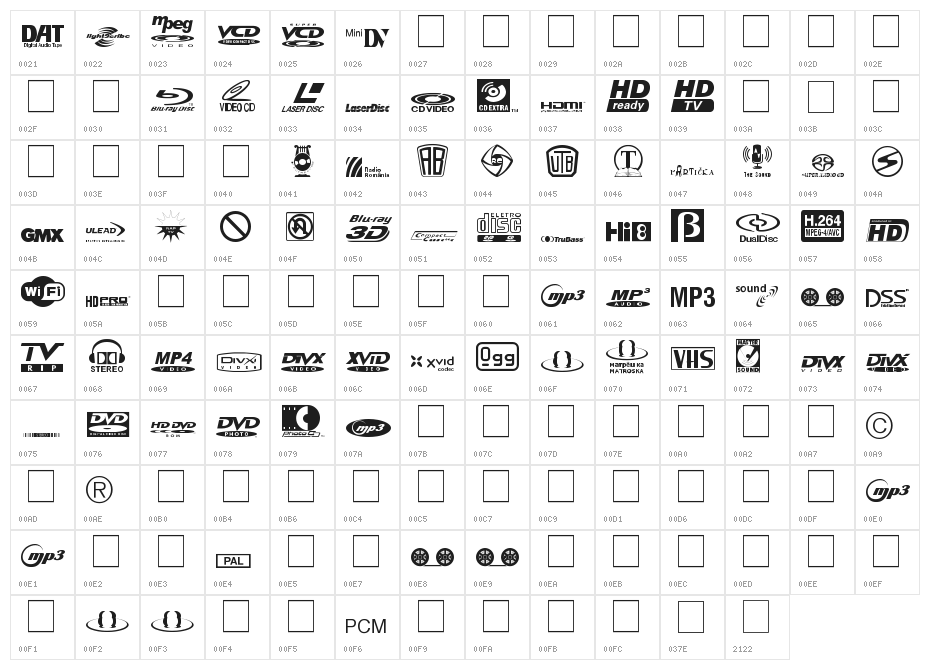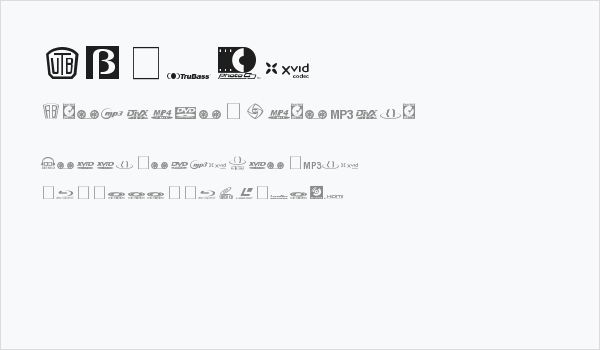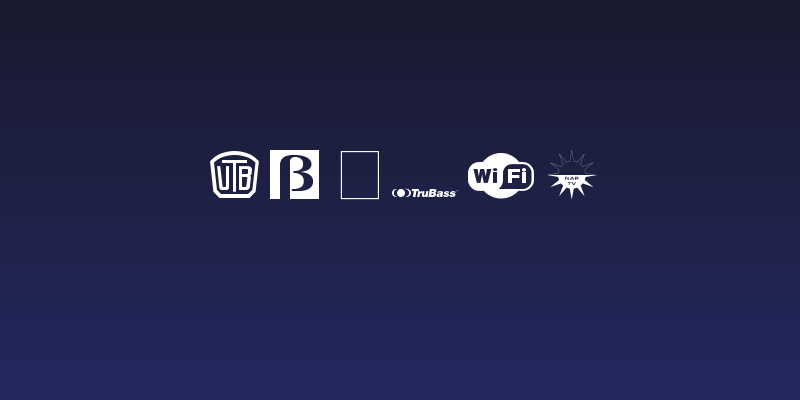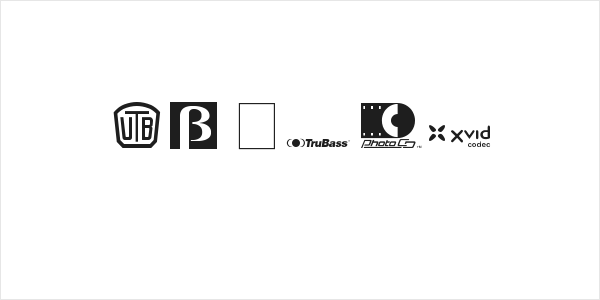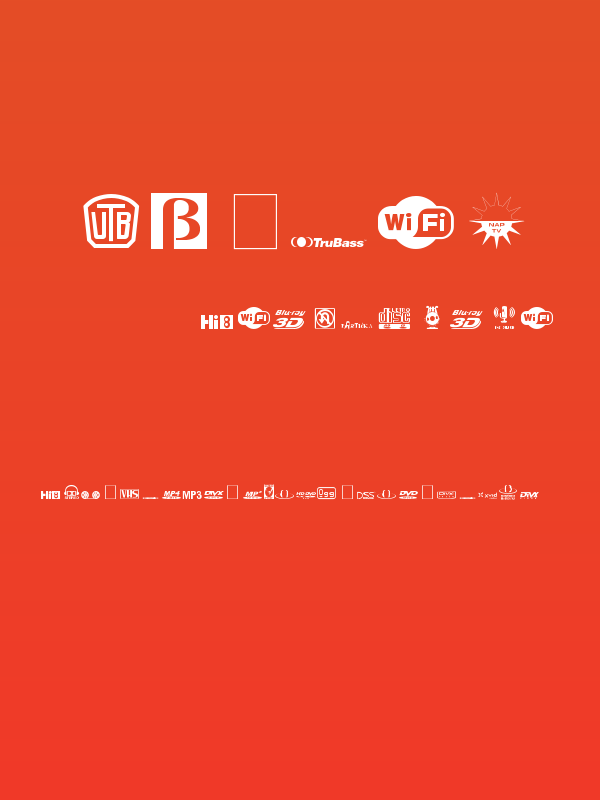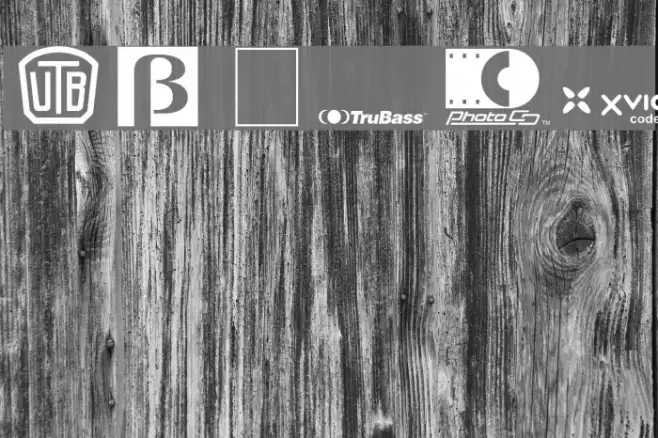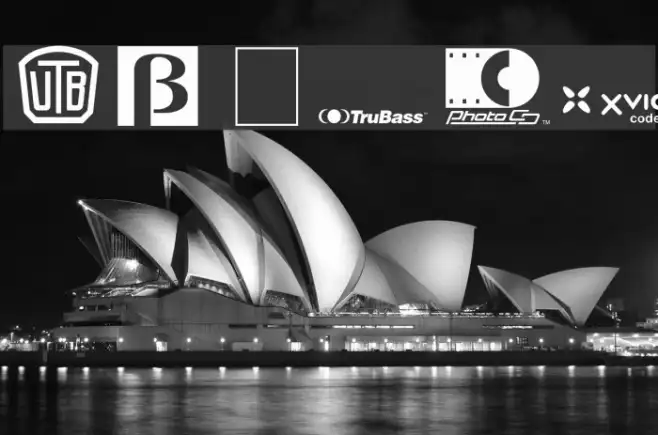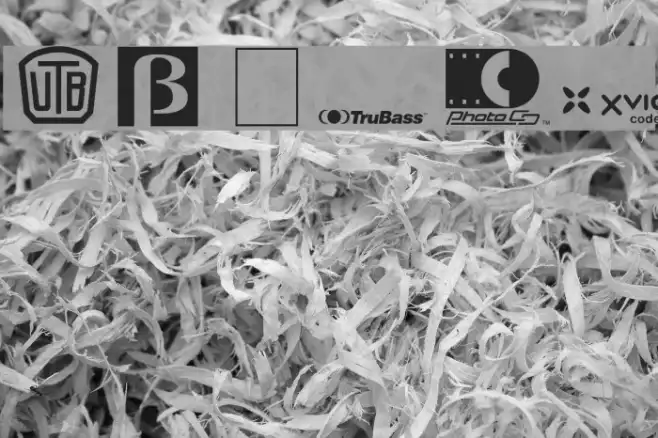
EU-Sym Font
EU-Sym Description
A collection of various media and technology-related logos and icons, each rendered in a bold, geometric, sans-serif style with high contrast and clear, legible forms. The glyphs are primarily logos and symbols rather than standard alphabetic or numeric characters.